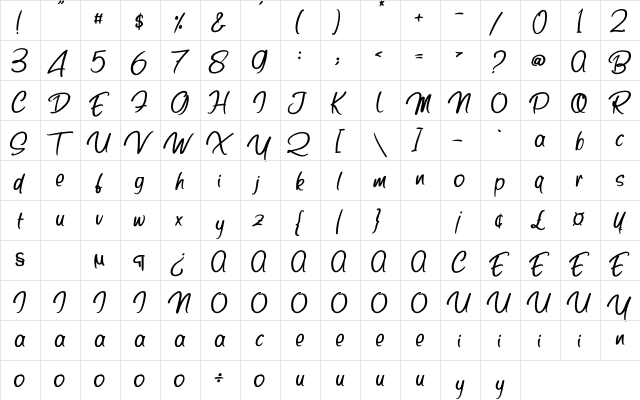
Deep Abyss Regular
Design Context for Deep Abyss Typeface
Deep Abyss is a composed and adaptable typeface that performs quietly and consistently across a wide range of design contexts.
Pro Tip: Use Deep Abyss in both headline and body roles to test its range before committing to a single application.